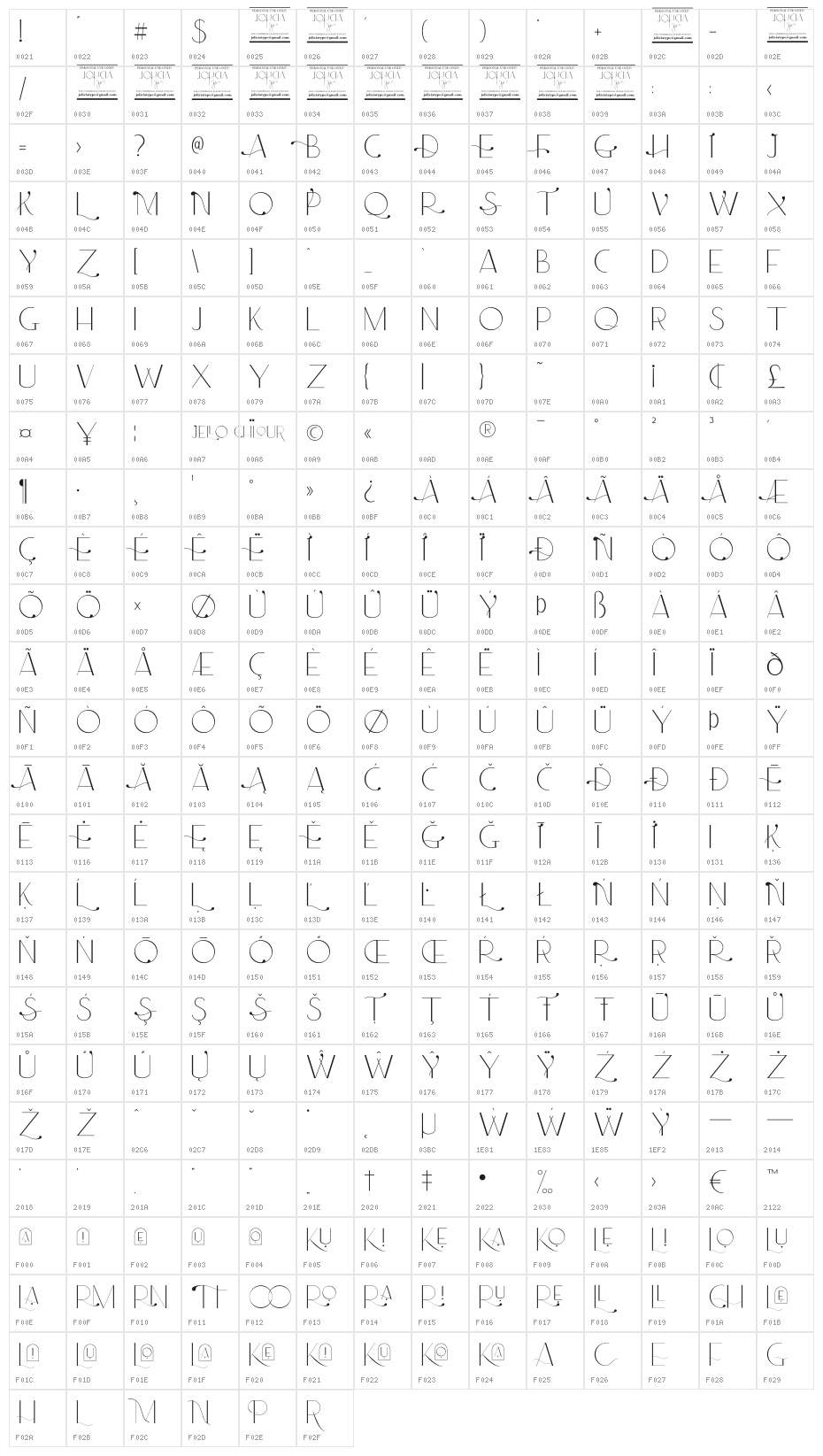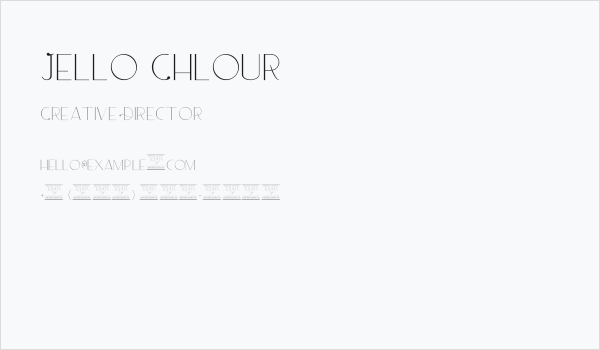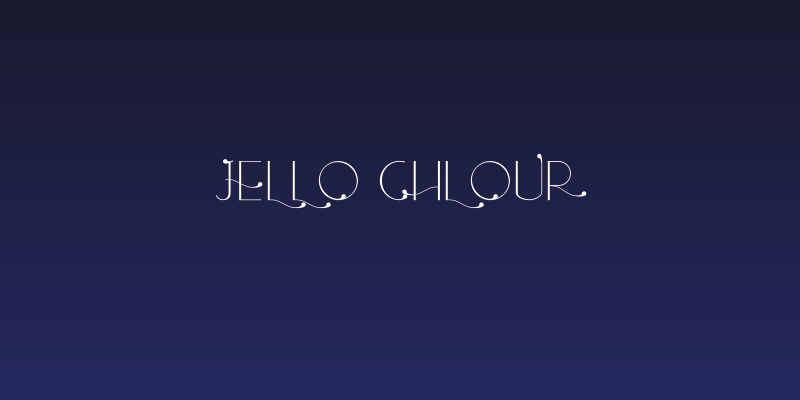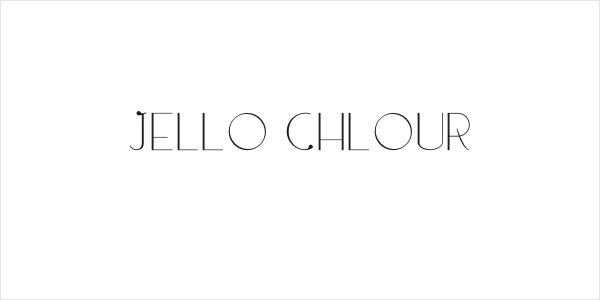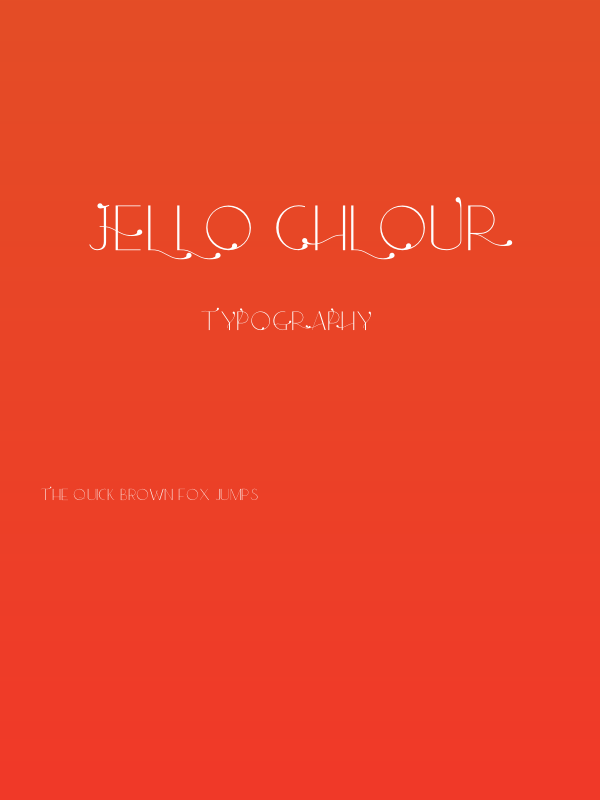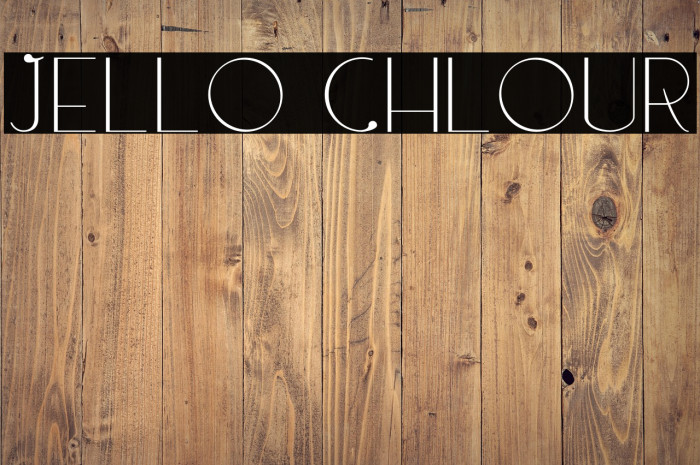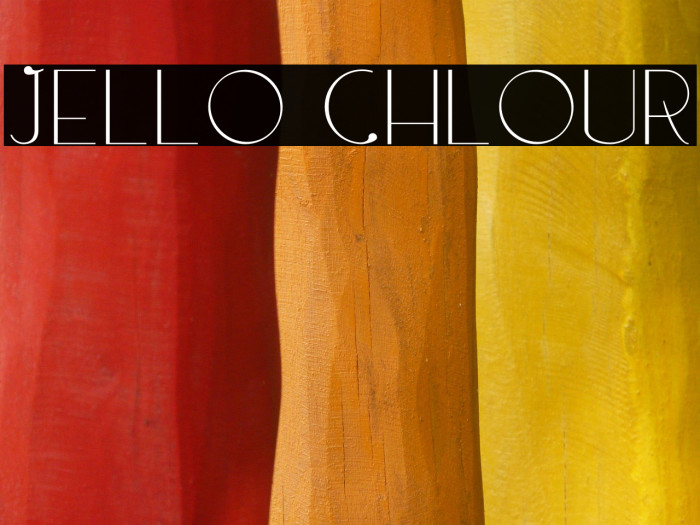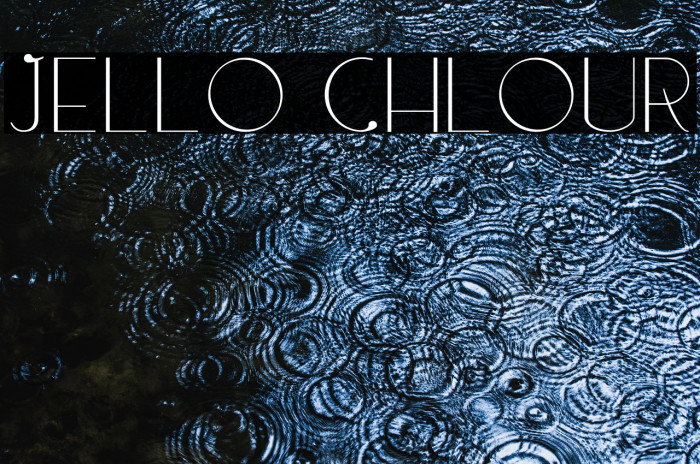
Jello Chlour Font
Jello Chlour Description
This font presents a unique blend of elegance and modernity, characterized by its thin, elongated strokes and decorative swirls that add a touch of sophistication. The uppercase letters feature distinct embellishments, such as loops and curves, which give the font a whimsical yet refined appearance. The lowercase letters maintain a consistent style, with a clean and minimalist design that complements the ornate uppercase. The numerals and special characters are crafted with the same attention to detail, ensuring a cohesive look across all elements. This font's delicate lines and artistic flair make it ideal for projects that require a touch of elegance and creativity.
| Proposed Projects | Ideal for wedding invitations, luxury branding, high-end product packaging, and artistic posters. |